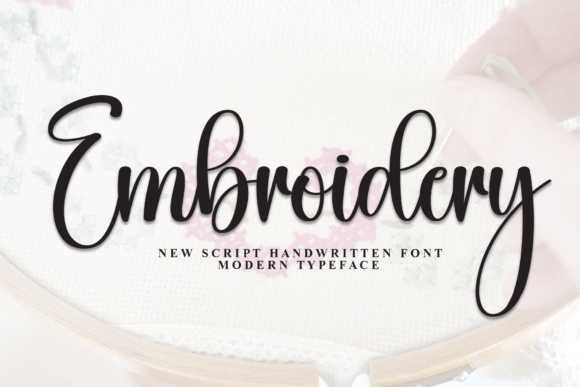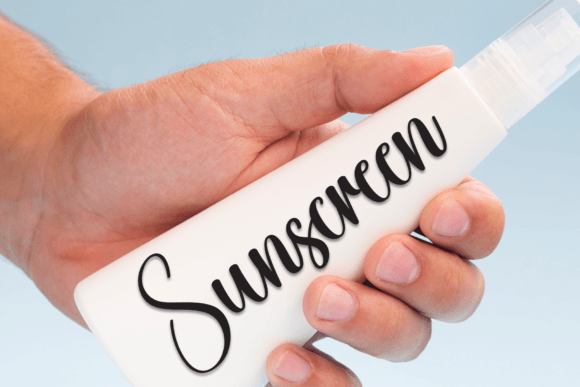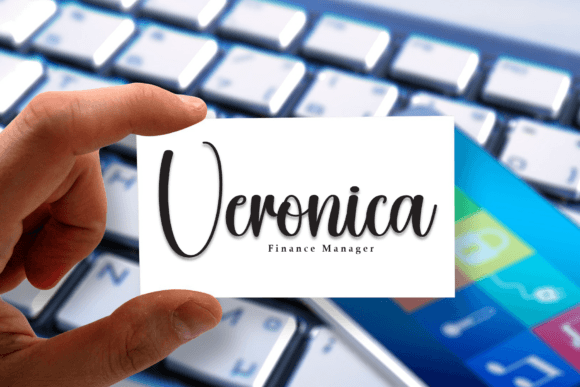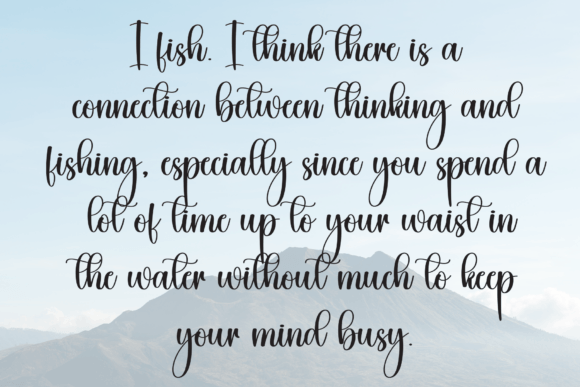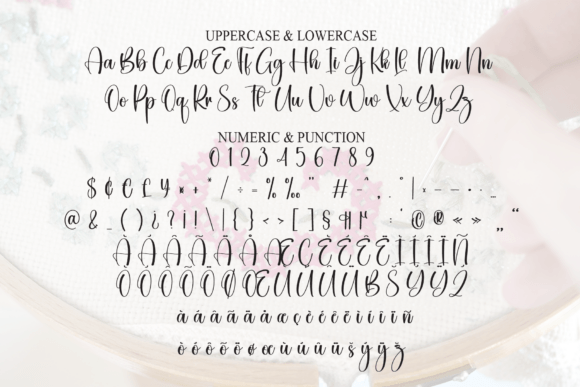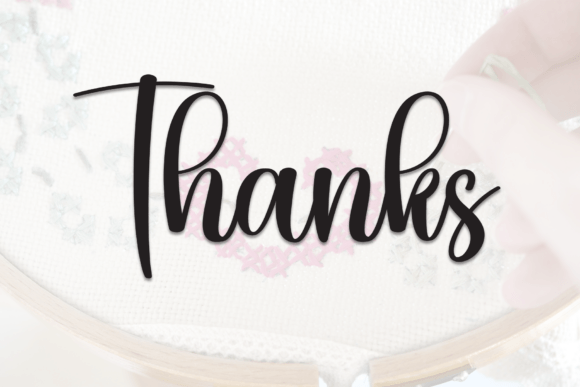
Embroidery Font
“Embroidery” is an elegant handwritten font that features flowing, graceful letters. It has a soft and artistic style, making it perfect for designs that need a touch of sophistication. This font works well for invitations, branding, and any project that calls for a personal, stylish touch.